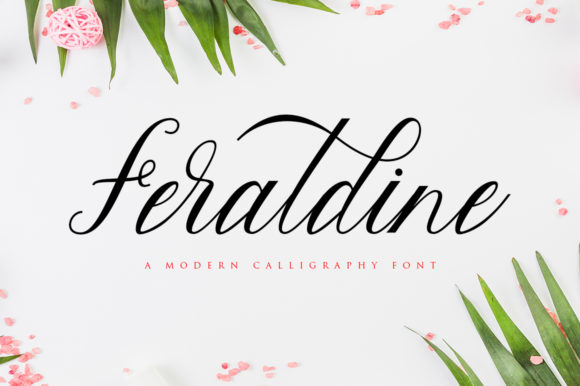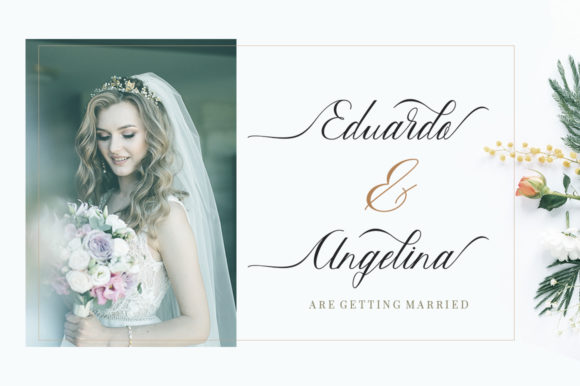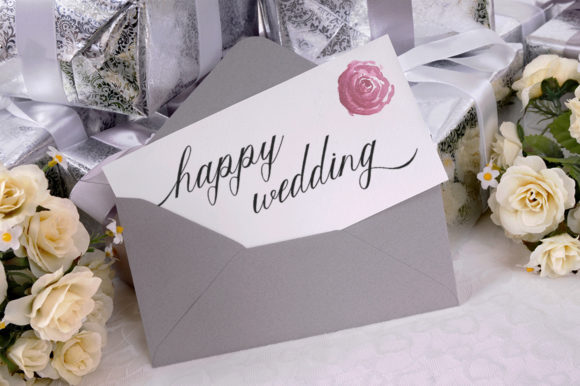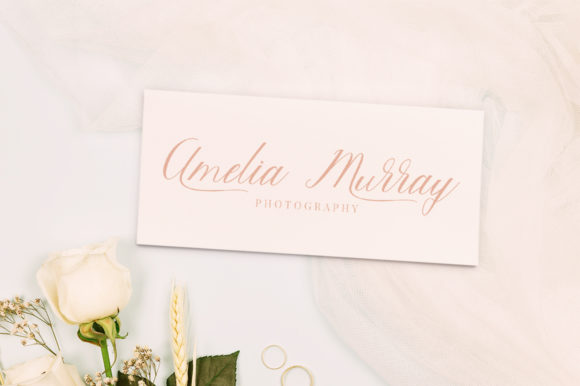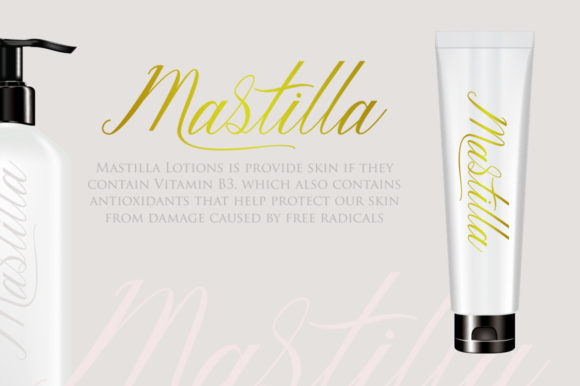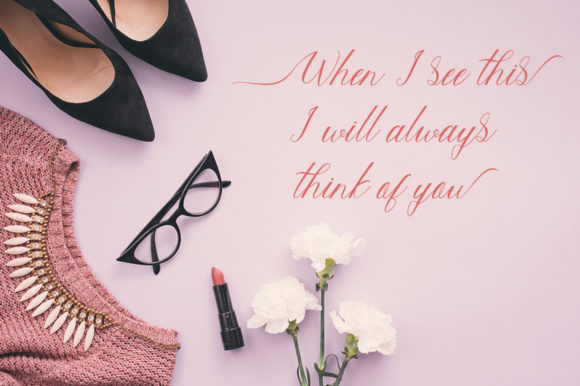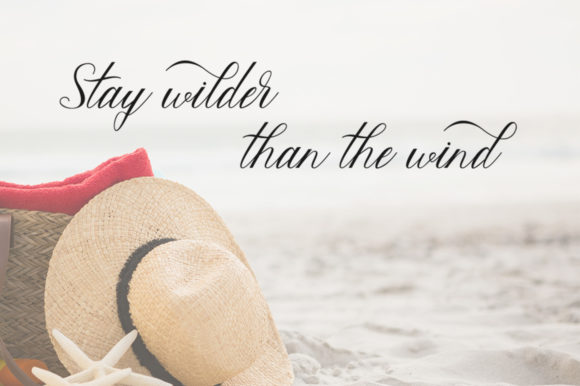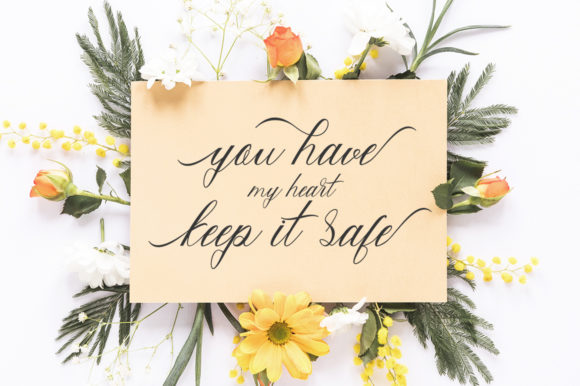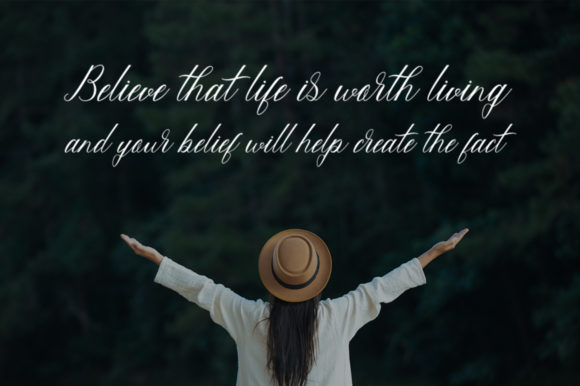
HomeScript FontsFeraldine Font Script Fonts Feraldine Font FacebookXPinterestWhatsApp Feraldine Font Poster 2 Feraldine Font Poster 3 Feraldine Font Poster 4 Feraldine Font Poster 5 Feraldine Font Poster 6 Feraldine Font Poster 7 Feraldine Font Poster 8 Feraldine Font Poster 9 About Feraldine Font Feraldine is a cute calligraphy font with pretty flourishes. Perfect for a variety of creative projects! DOWNLOAD NOW People also explored Rabbit Font Rinegar Font Chocolate Story Font Keep Kind Font Healthiest Font Giselle Jakayla Font Bobohona Font Handmade Wonderful Duo Font Bassanova 297 0 TagsFeraldine Font Previous articleAnobeshi FontNext articleFrances Font LEAVE A REPLY Cancel reply Comment: Please enter your comment! Name:* Please enter your name here Email:* You have entered an incorrect email address! Please enter your email address here Website: Save my name, email, and website in this browser for the next time I comment. Personal Use Free Wondery Personal Use Free Read more about this font Jilliant Personal Use Free Read more about this font Zeshane Personal Use Free Read more about this font Sunflower Personal Use Free Read more about this font BLOG Best Fonts for T-Shirt Design – Top 2025 Picks In 2025, t-shirt design has become more than just fashion—it's a form of self-expression. Whether you're... 5 Fonts That Will Dominate Design Trends in 2026 Using Fonts in Digital Marketing: Tips to Strengthen Your Brand Identity The 10 Best Handwriting Fonts to Add Personality to Your Designs